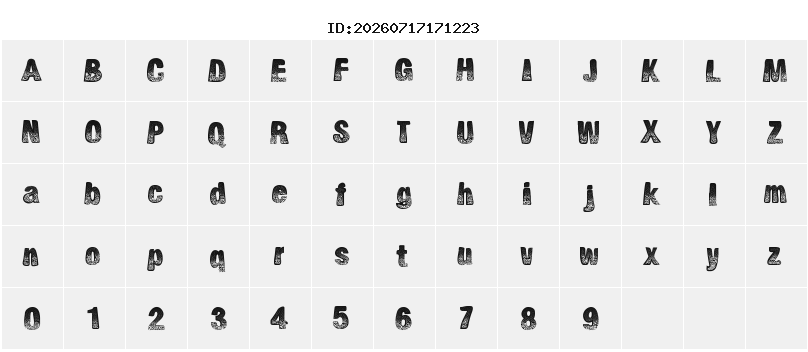
BigPrint Preview
• Designer: Max Infeld
• Manufacturer: Xerographer Fonts
• Description: This font at Empire Coffee chico,CA
About BigPrint.ttf
BigPrint.ttf is a modern, elegant sans-serif font designed for ultimate readability and visual harmony. Perfect for branding, headlines, web design, and print materials.